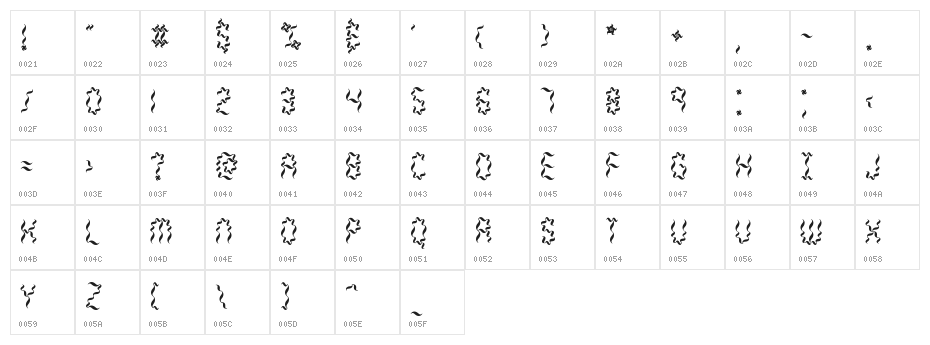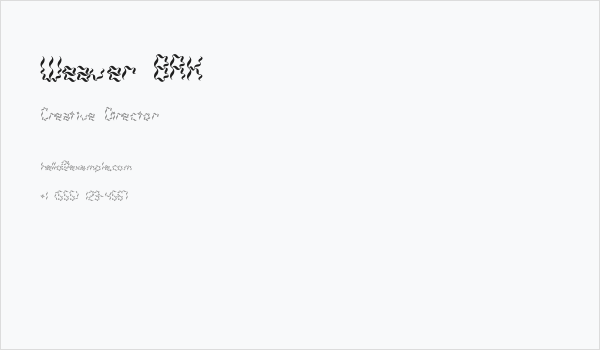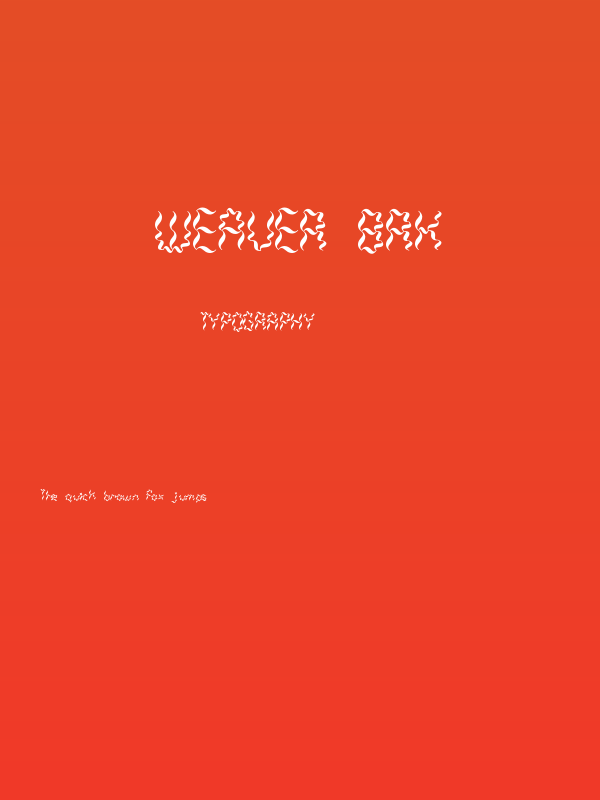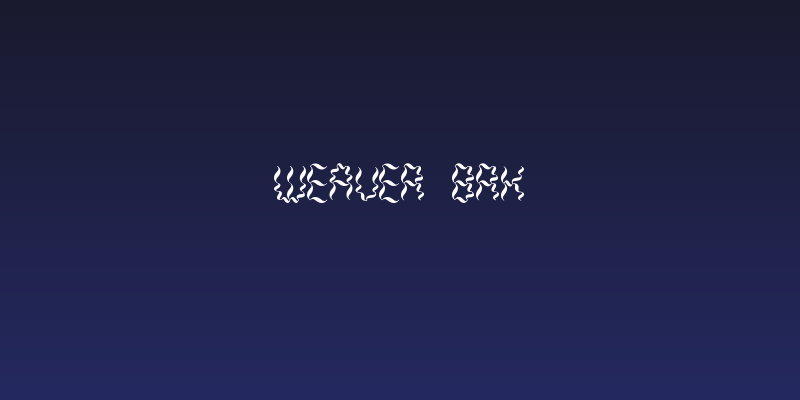
Weaver BRK Font
Weaver BRK Description
This font features a highly decorative and whimsical style, characterized by its wavy, ribbon-like strokes that form each letter. The playful curves and loops give it a unique, almost organic appearance, making it stand out as a display typeface. The letters are bold and have a consistent thickness throughout, with no significant contrast in stroke width. The overall design is reminiscent of a festive or celebratory theme, with each character appearing as if it is dancing or swaying. This font is not suited for body text due to its intricate design but is perfect for creative and eye-catching headlines or artistic projects.
| Proposed Projects | Ideal for party invitations, event posters, artistic projects, and any design requiring a playful and eye-catching headline. |